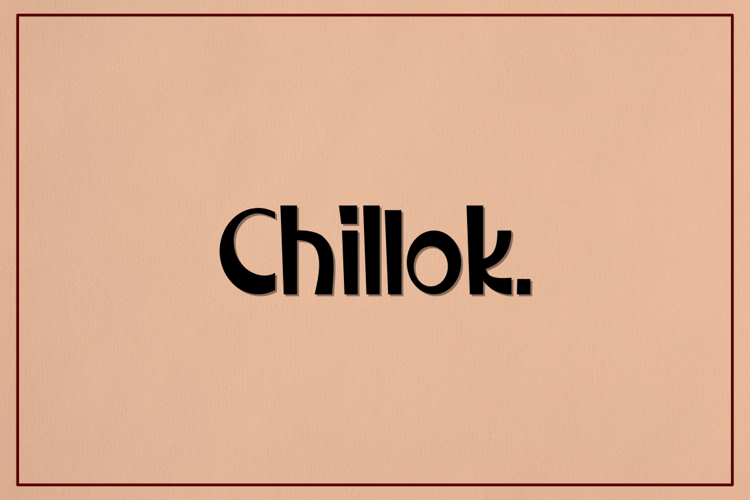
Chillok Font
Chillok is a beautiful display font. Chillok is perfectly suited for logos, logotypes, branding, posters, t-shirts, quotes, instagram posts, book covers and much more.